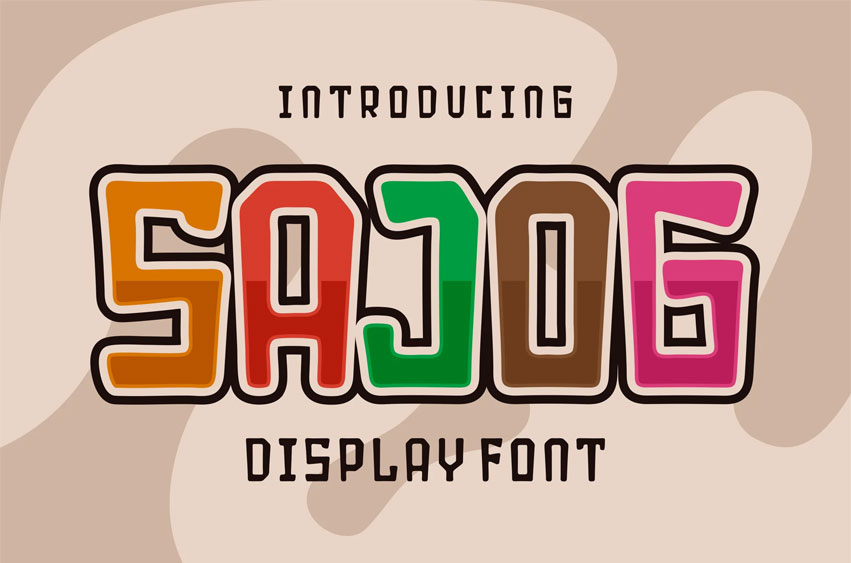
Sajog Font Display Font is perfectly suited for print/screen. It’s perfect for Branding, name cards, posters, logos, magazines, covers, banners, t-shirts, headers, or even large-scale artwork.